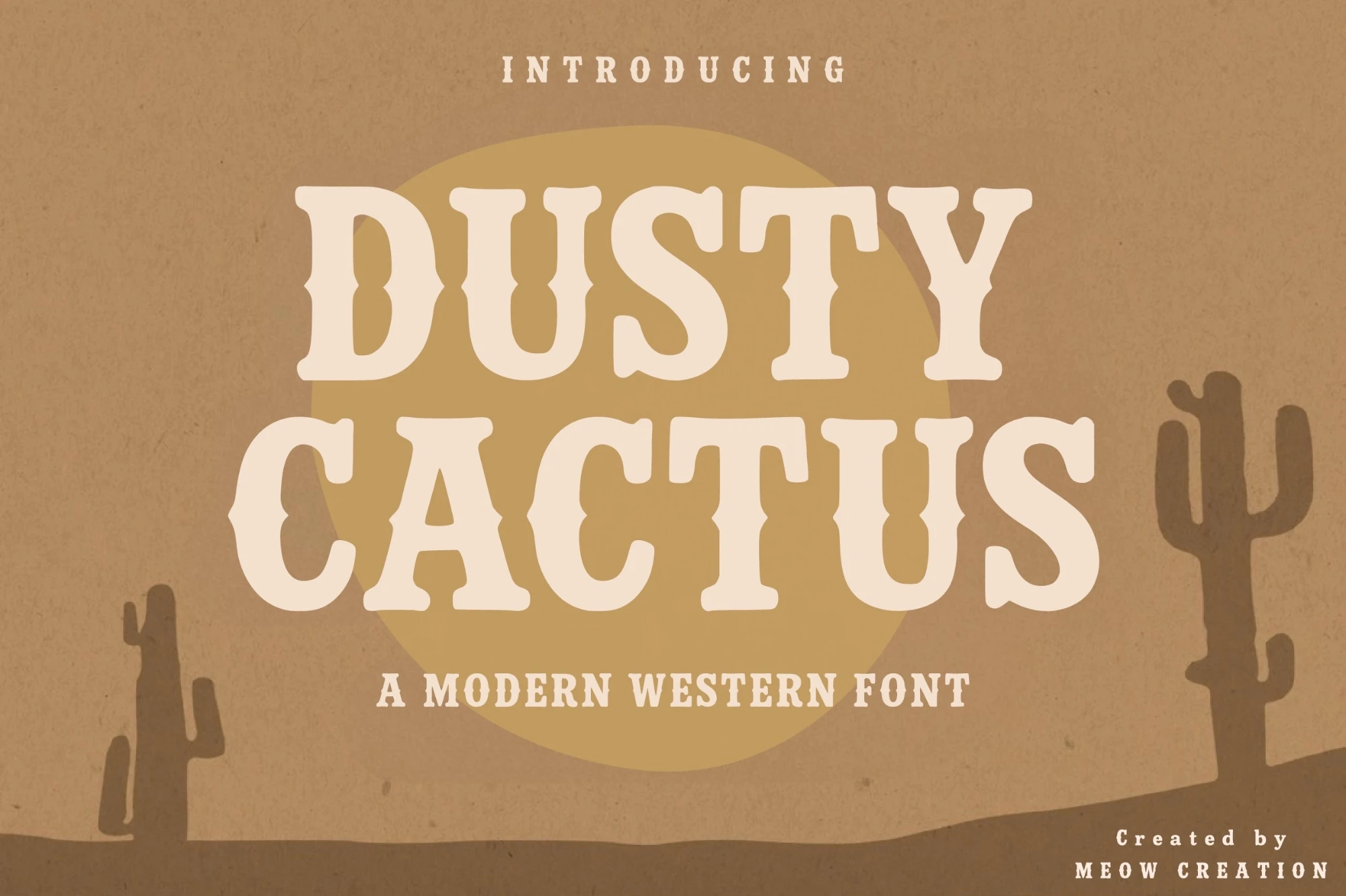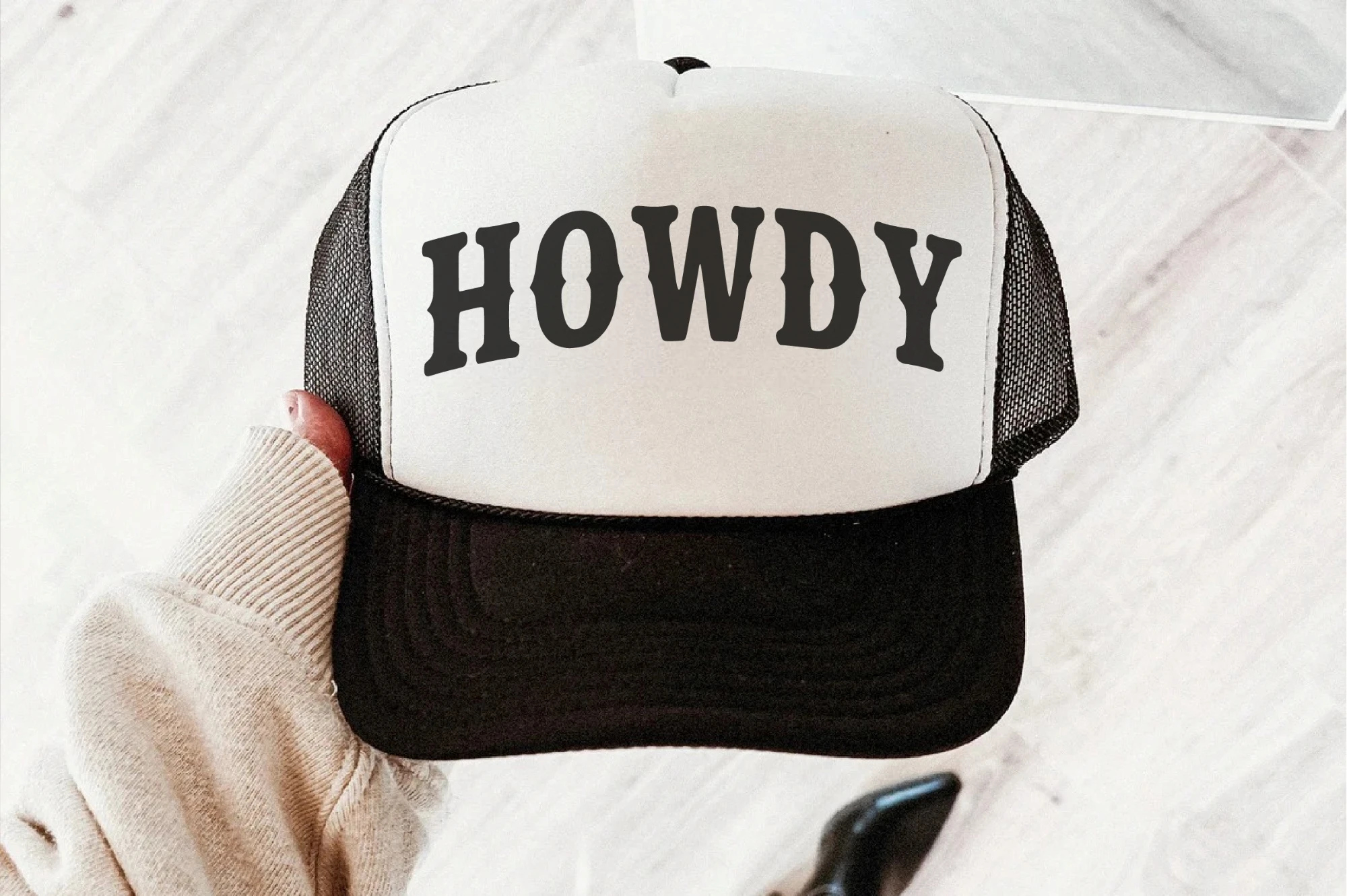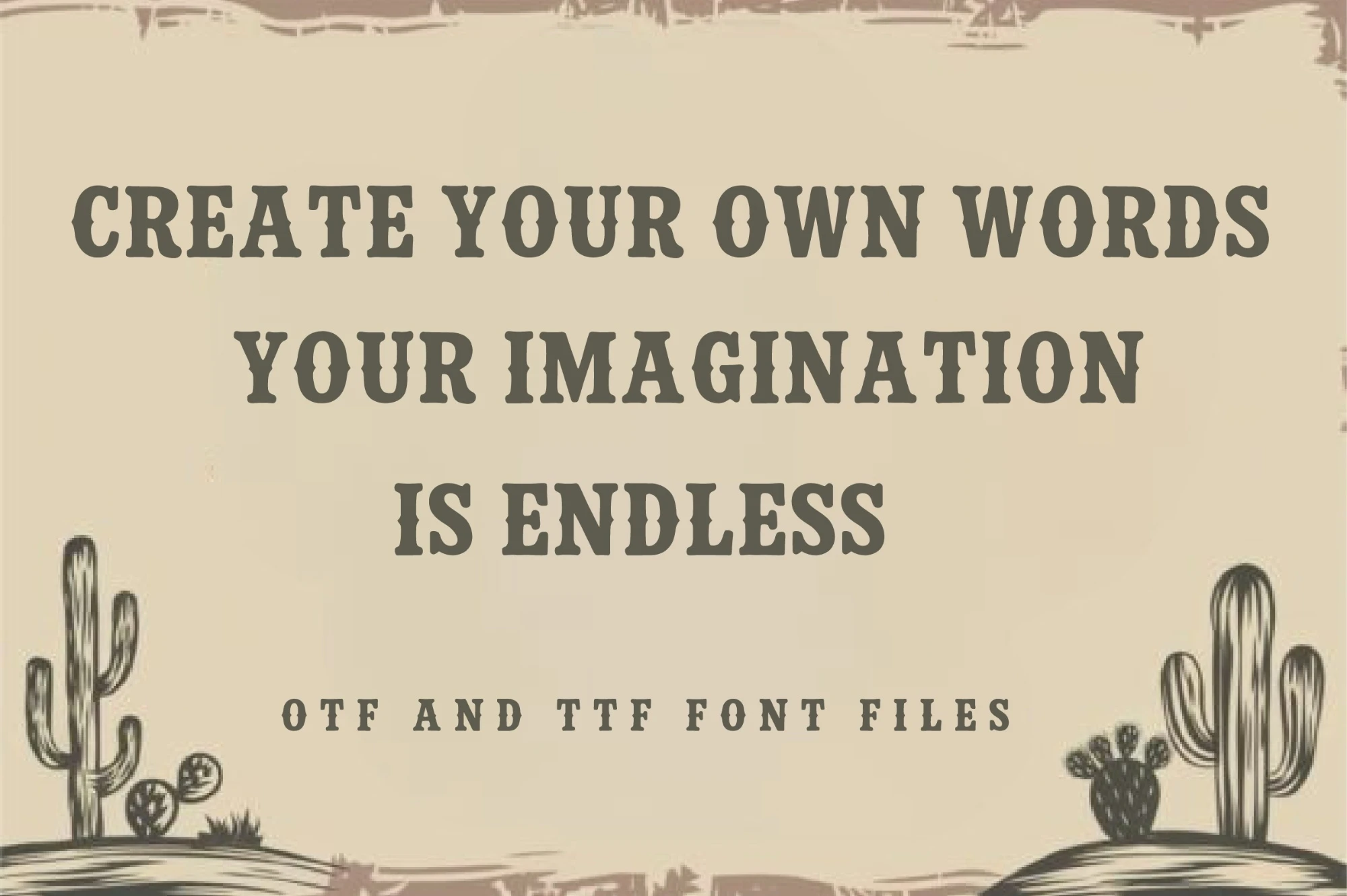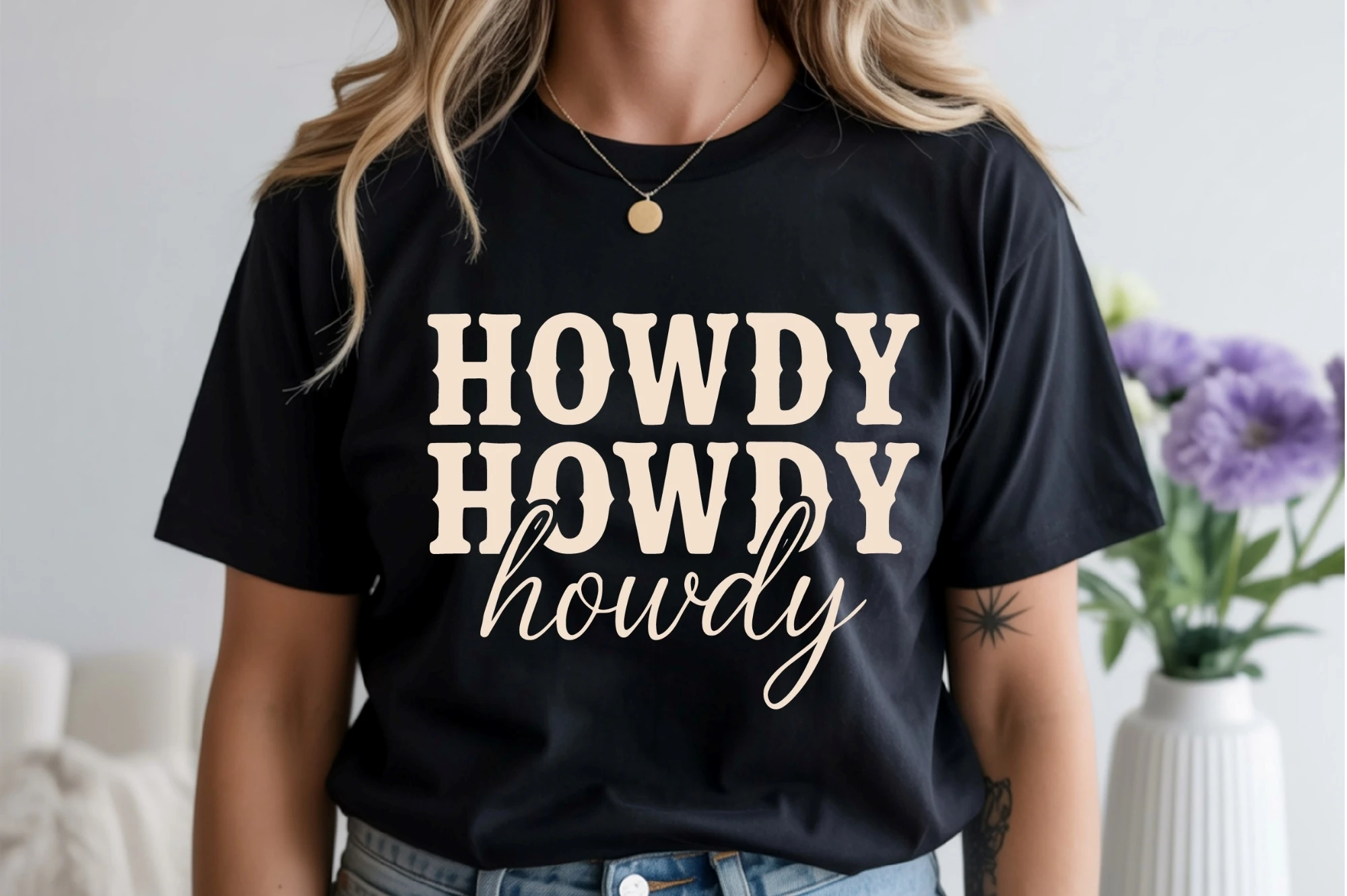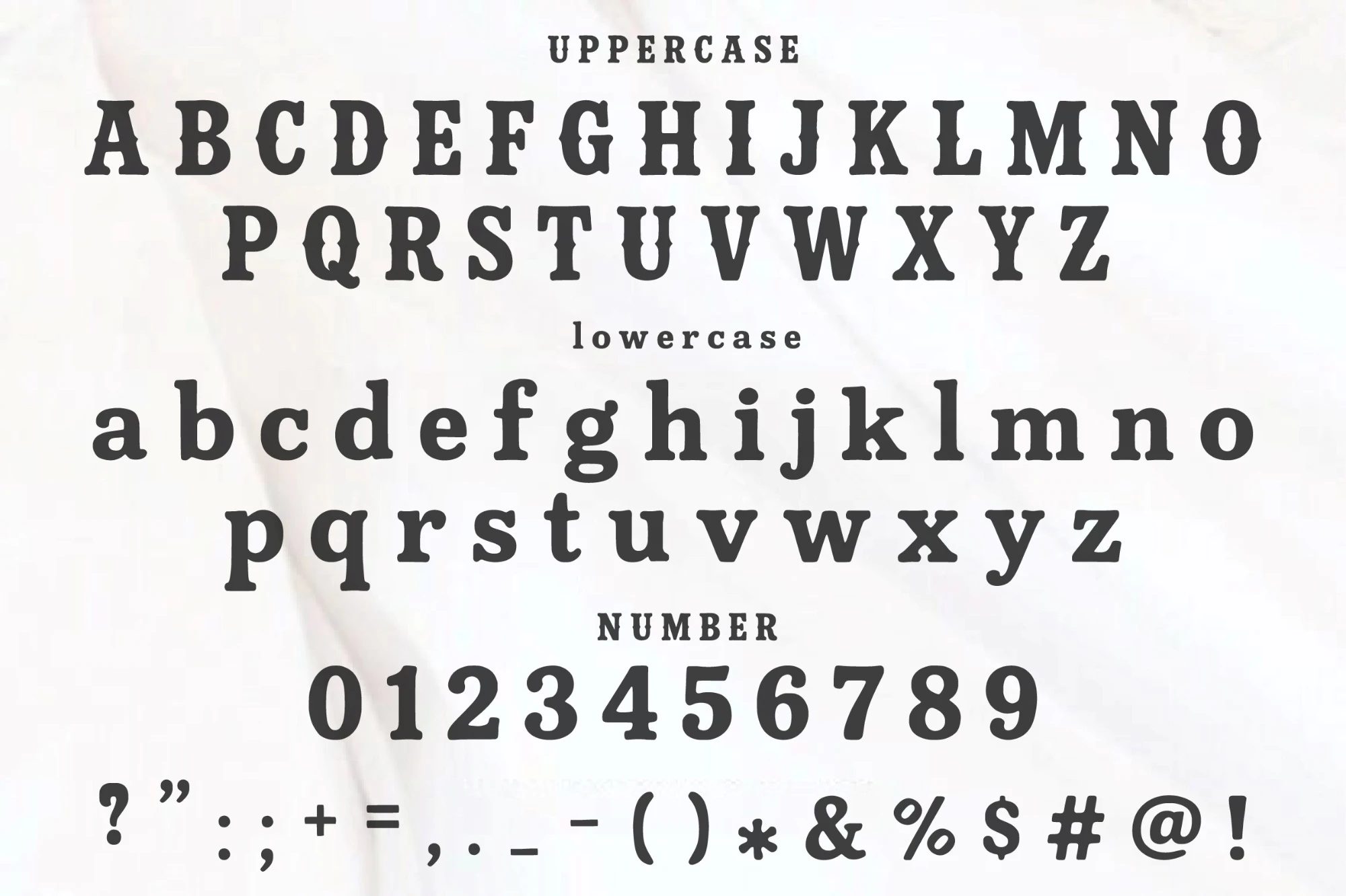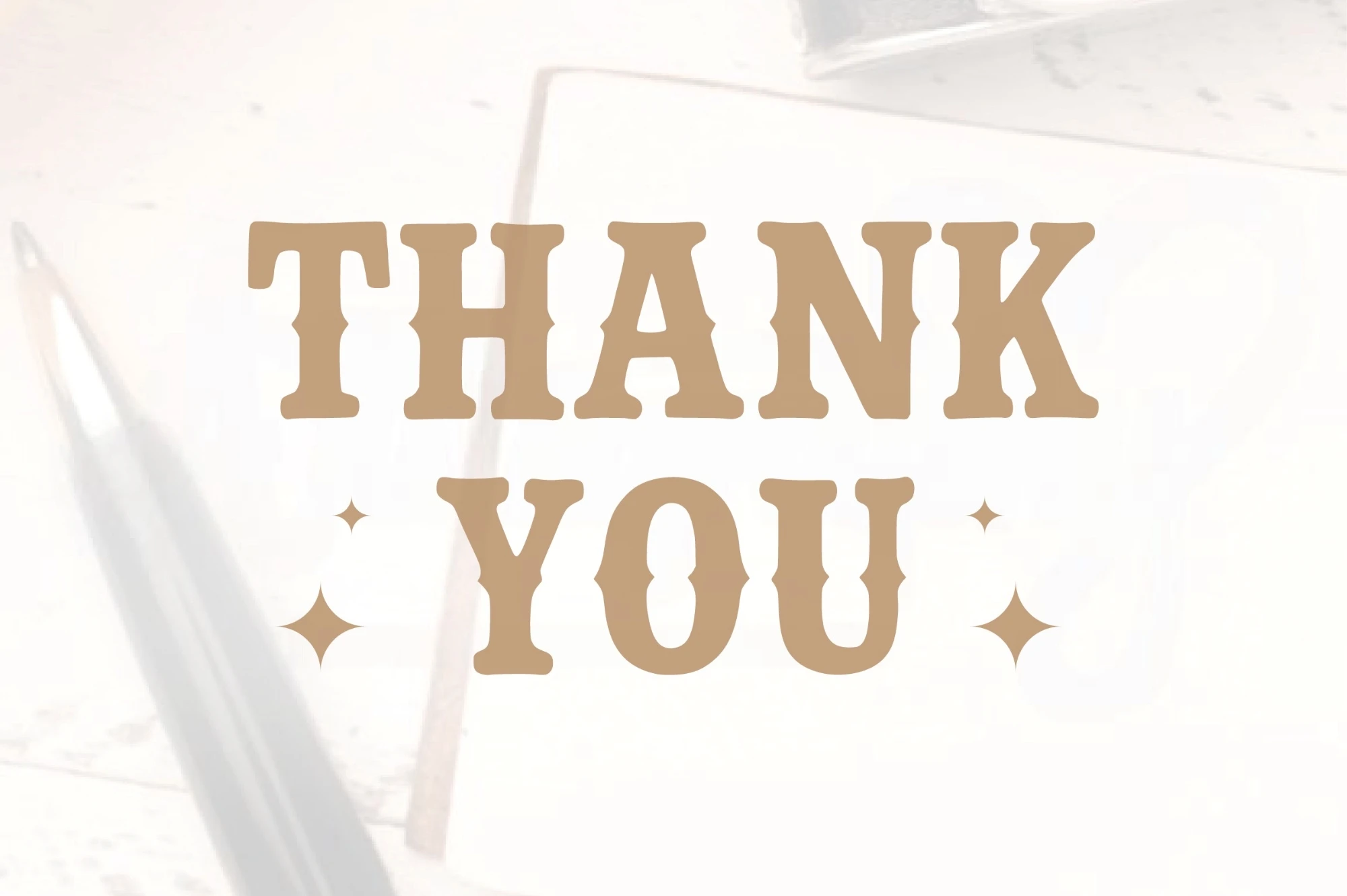
Dusty Cactus is a bold western-style display font that captures the rugged spirit of the wild frontier. With its thick serif edges, vintage curves, and dusty charm, this typeface brings authentic cowboy energy to any design.
Perfect for western posters, rodeo titles, ranch branding, whiskey labels, vintage packaging, and adventure logos Dusty Cactus adds a rustic, handcrafted touch that feels strong and timeless.
Let your words ride into the sunset with Dusty Cactus where grit meets style.
Perfect for western posters, rodeo titles, ranch branding, whiskey labels, vintage packaging, and adventure logos Dusty Cactus adds a rustic, handcrafted touch that feels strong and timeless.
Let your words ride into the sunset with Dusty Cactus where grit meets style.
Dusty Cactus Font